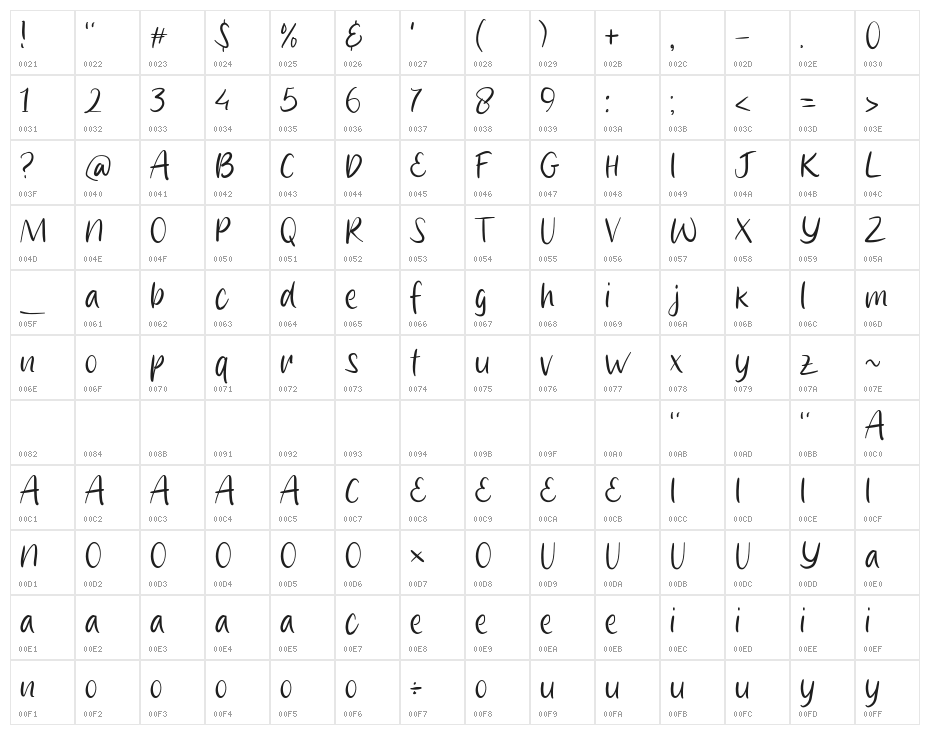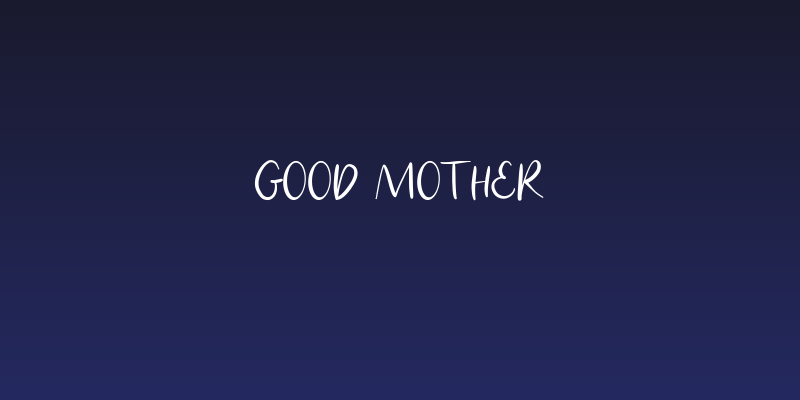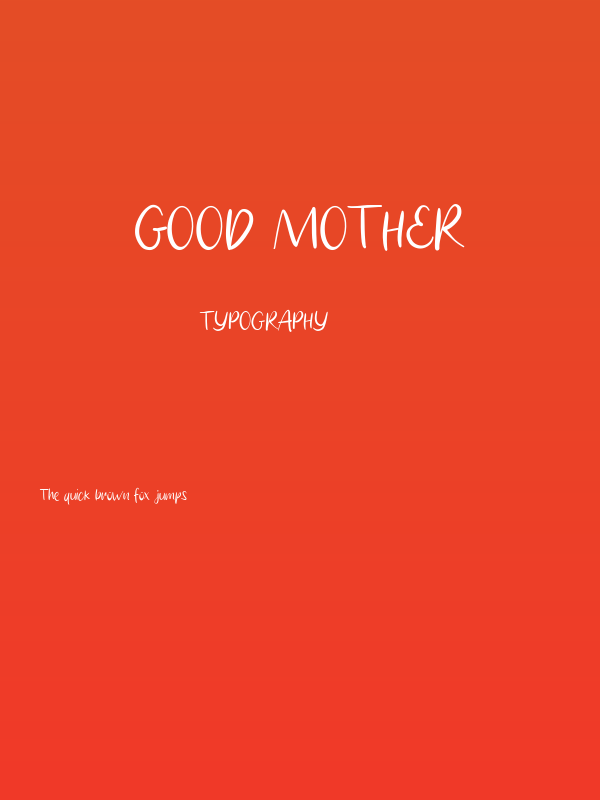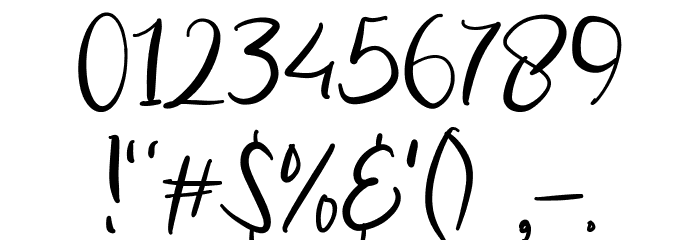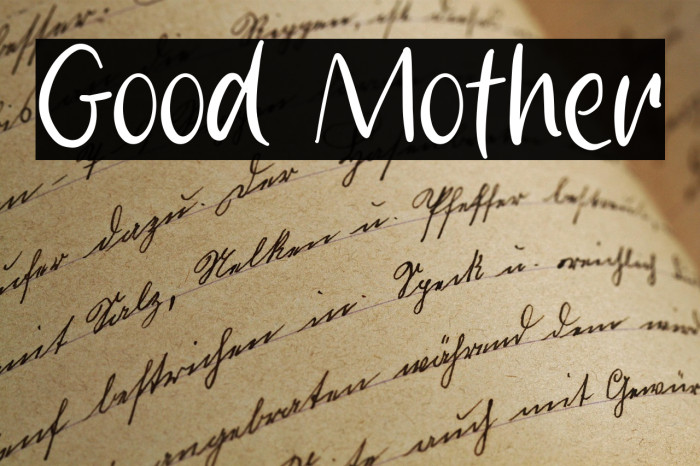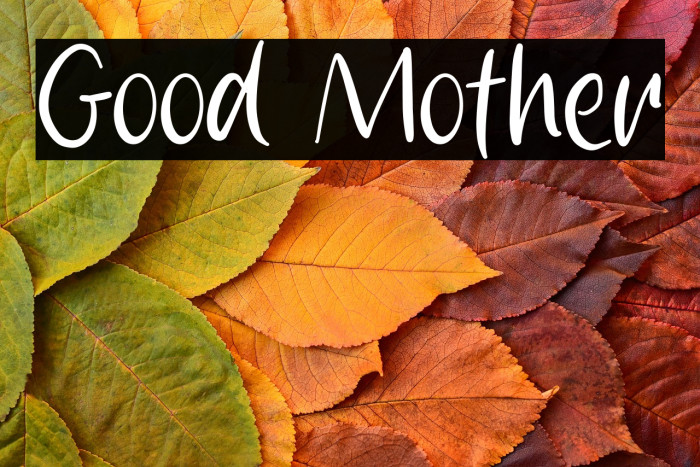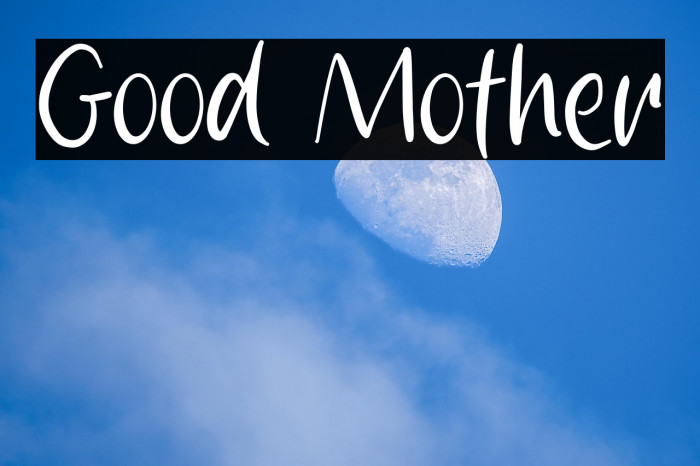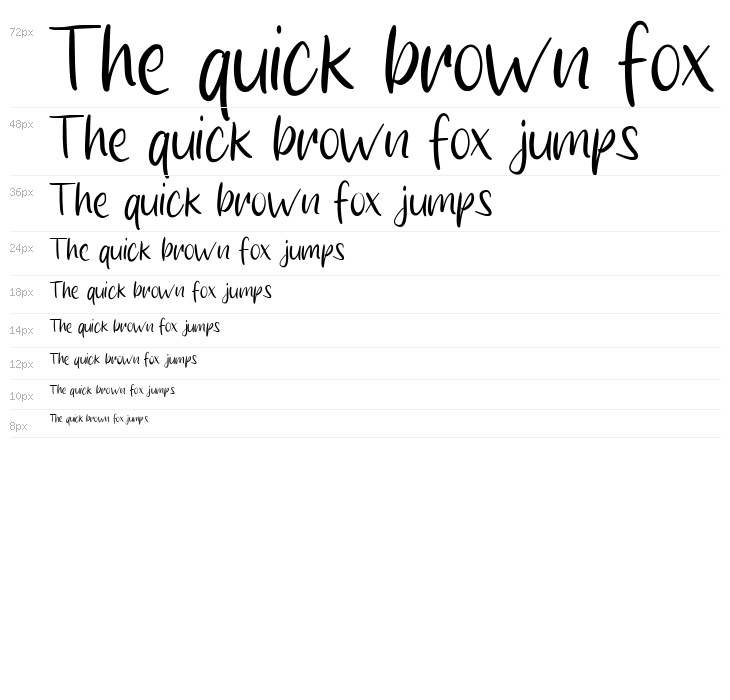
Good Mother Font
Good Mother Description
This font exudes a playful and casual handwritten style, characterized by its fluid and dynamic strokes. The letters have a natural flow, mimicking the organic movement of handwriting. The uppercase and lowercase letters maintain a consistent style, with slightly exaggerated curves and loops that add a whimsical touch. The numbers and special characters are crafted with the same playful energy, ensuring a cohesive look across all text elements. This font is perfect for projects that require a personal and approachable feel, such as greeting cards, invitations, or creative branding.
| Overall Style | Casual, Playful |
| Use Case | Headlines, Logos, Invitations |
| Proposed Projects | Ideal for greeting cards, invitations, creative branding, and personal projects. |